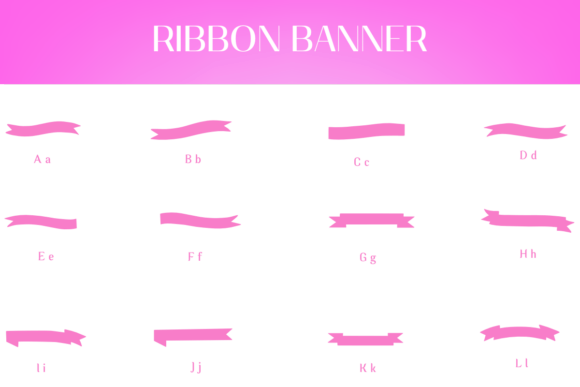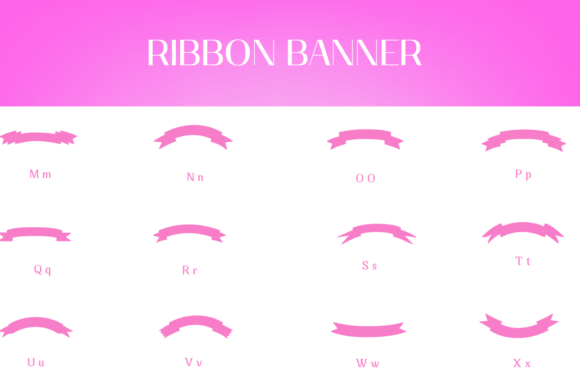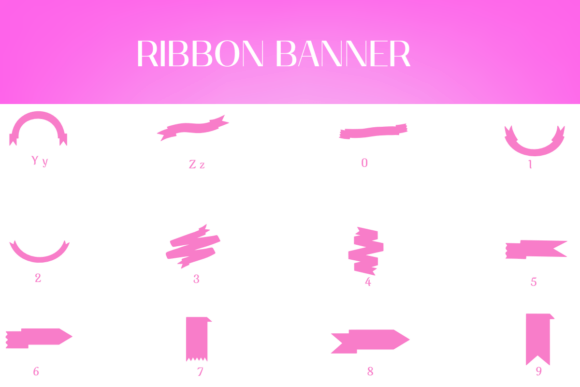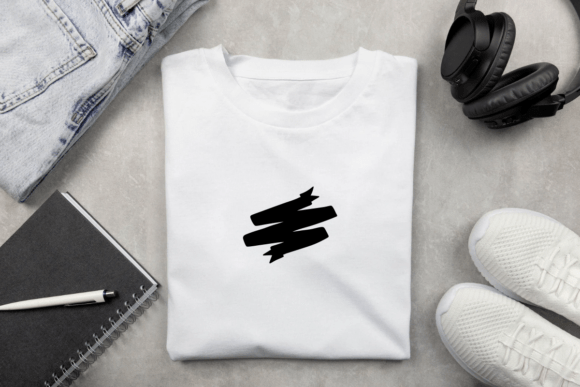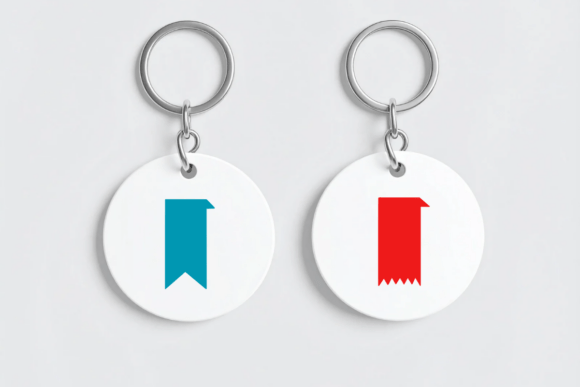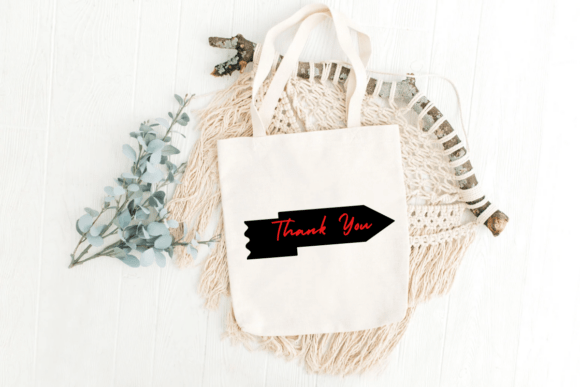
Introduction to Ribbon Banner Font
Remember the excitement of crafting a handmade birthday card for a loved one? The joy of combining colorful ribbons, creative messages, and a personal touch to make it truly special. If you’re a designer looking for a way to elevate your creative projects, you’re in luck. The Ribbon Banner Font is here to help you add that extra oomph to your designs.
This free download is a high-quality Dingbats Font that’s perfect for taking notes, writing a diary, or making greeting cards. But its uses don’t stop there. With a transparent background, you can easily incorporate it into a wide range of creative projects, from banners and content to mugs, cards, and social media posts. As a valuable design resource, the Ribbon Banner Font is a must-have for anyone looking to add a touch of whimsy and personality to their work.
Whether you’re a seasoned designer or just starting out, the Ribbon Banner Font is an excellent addition to your toolkit. So why not give it a try and see the difference it can make in your creative projects?
Key Features of Ribbon Banner Font
- Unique, eye-catching font style perfect for adding a touch of elegance to your designs.
- Transparent background option for seamless integration with any design element.
- Supports high-resolution designs up to 300 DPI, ensuring crisp and clear text in any size or resolution.
- Easy to use and customize, making it a valuable design resource for both beginners and professionals.
- Perfect for creating attention-grabbing headlines, titles, and other design elements for various creative projects.
Honest Review: Ribbon Banner Font
I recently had the chance to experiment with the Ribbon Banner Font, and I must say it’s been a game-changer for my creative projects. The font is designed to mimic the look of a ribbon, and it’s perfect for adding a touch of elegance to any design.
Here are some of the things that work well with this font: ✨ High-quality design, ✨ transparent background option, ✨ great for digital and print projects, and ✨ a free download option – what’s not to love?
Here are some potential limitations to keep in mind: ⚠️ limited character set, ⚠️ not suitable for all types of projects (e.g. small text), and ⚠️ may require some tweaking to get the desired effect.
- Works well for titles, headings, and other large text elements
- Perfect for creating a cohesive design style across multiple projects
Overall, I’m really impressed with the Ribbon Banner Font. It’s a great addition to any designer’s toolkit, and I’d definitely recommend it for any creative project that requires a high-quality, unique font.
Use the Ribbon Banner Font in conjunction with other design resources to create a cohesive and visually appealing design.
Experiment with different font sizes, colors, and transparencies to find the perfect combination for your creative project.
The Ribbon Banner Font is perfect for creating titles, headings, and other text elements in your design projects.
Use it to create a high-quality design for your business, event, or personal project.
Q: Can I modify the Ribbon Banner Font to fit my specific design needs?
Yes, the Ribbon Banner Font is a design resource that can be easily customized to fit your specific project requirements. You can use graphic design software, such as Adobe Illustrator or Canva, to edit the font’s size, color, and style to match your project’s aesthetic and branding guidelines.